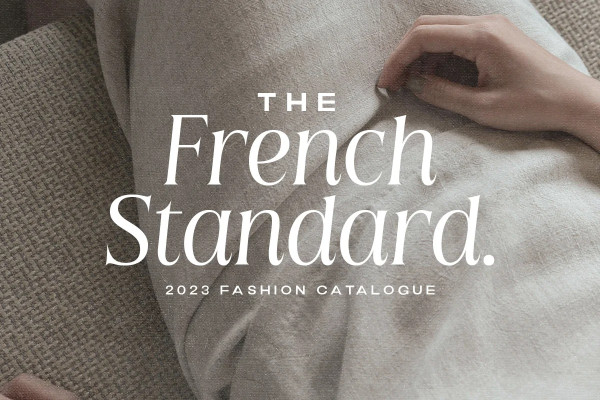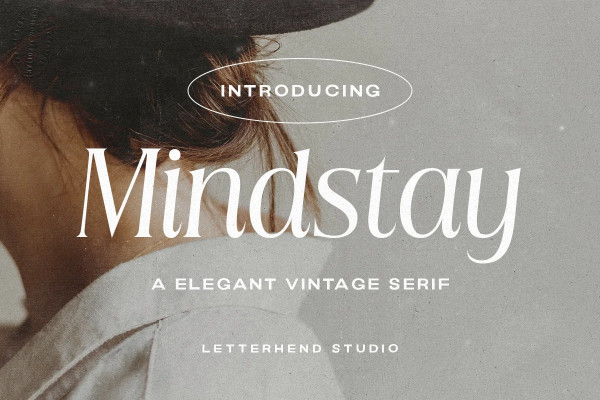
Mindstay Font
Mindstay Font, a elegant vintage serif font that exudes timeless charm and elegance. Its clean lines and meticulous attention to detail embody the essence of classic typography, making it a chic serif font.
Whether you’re creating a vintage-inspired logo, a retro-themed poster, or an elegant typographic composition, Mindstay adds a touch of refinement and sophistication to any project. Its meticulously crafted serifs and distinctive letterforms evoke a sense of nostalgia and grace, transporting your designs to a bygone era.